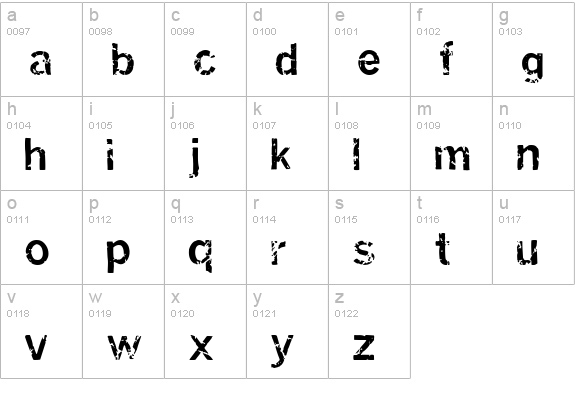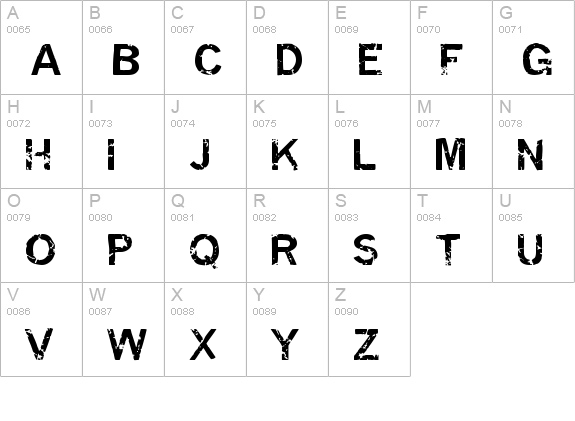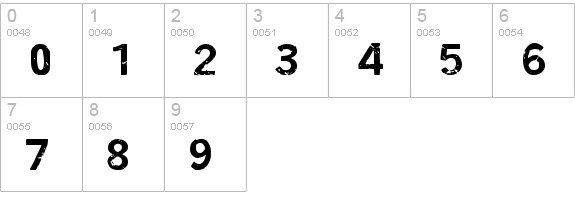
Miasm Infection Font Details
The Miasm Infection font is a unique and striking typeface that will add a touch of edgy sophistication to any design project. With its jagged edges and distorted letterforms, this font exudes a sense of mystery and intrigue. The Miasm Infection font is perfect for creating eye-catching headlines, posters, and logos that demand attention. This font is not only visually captivating but also versatile, making it suitable for a wide range of design applications. Whether you're working on a horror-themed project, a music festival poster, or a cutting-edge branding campaign, the Miasm Infection font will help you make a bold statement. Best of all, the Miasm Infection font is available for free download at FontsMarket.com. So go ahead and unleash your creativity with this one-of-a-kind typeface today!